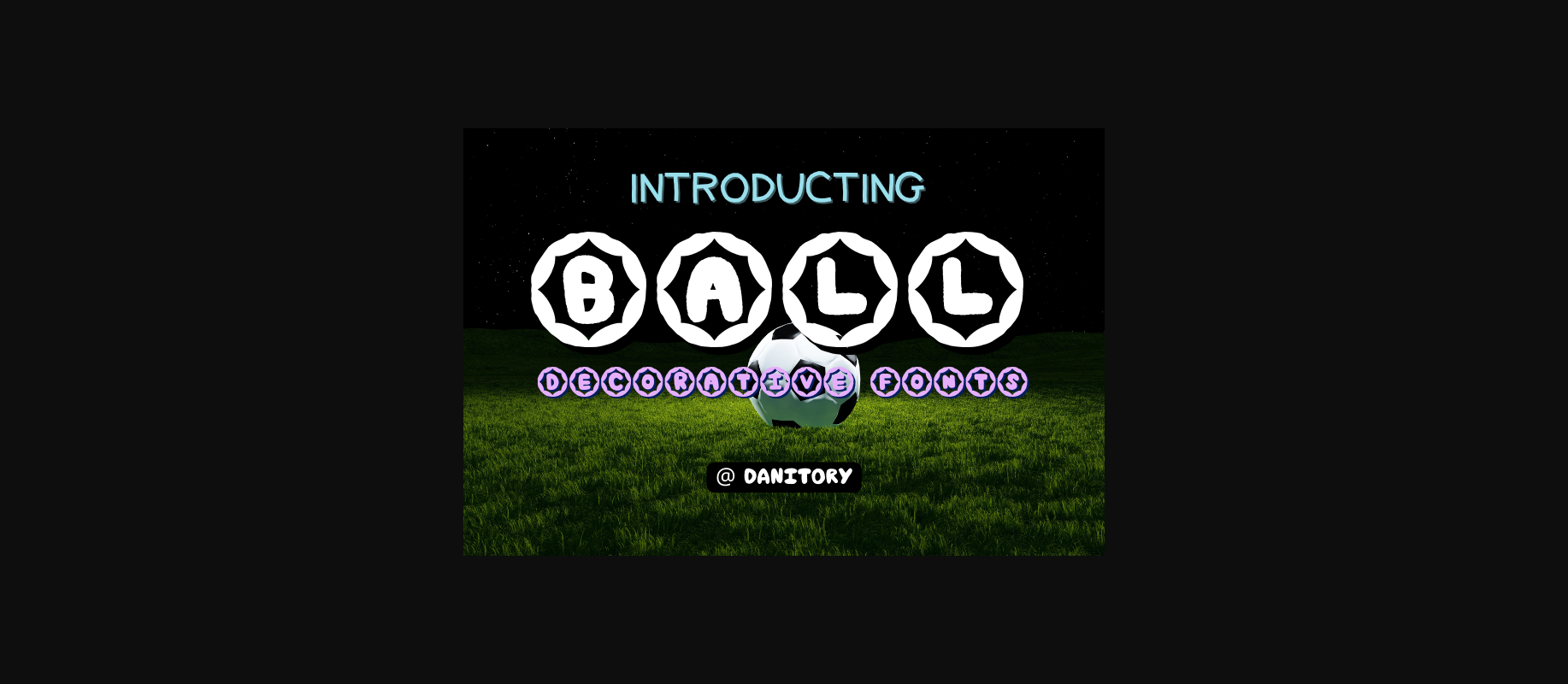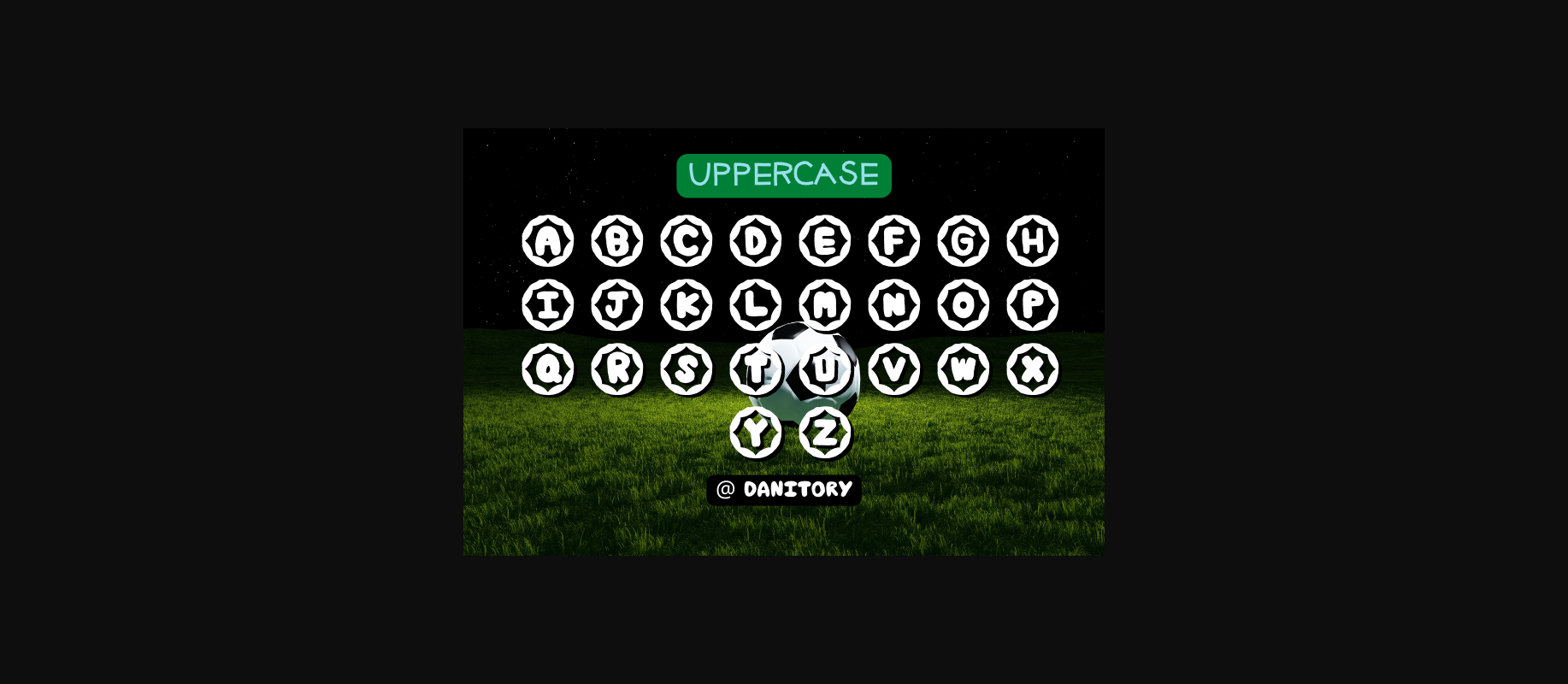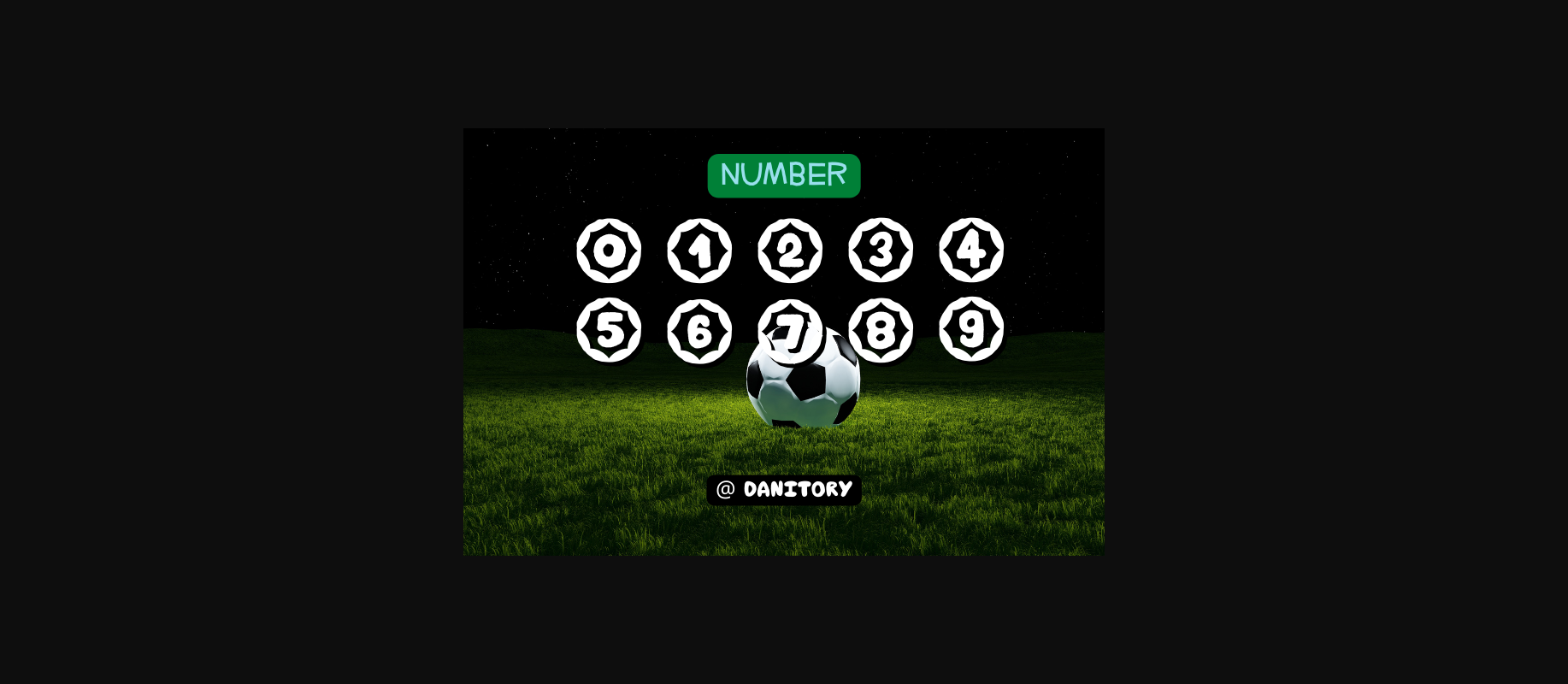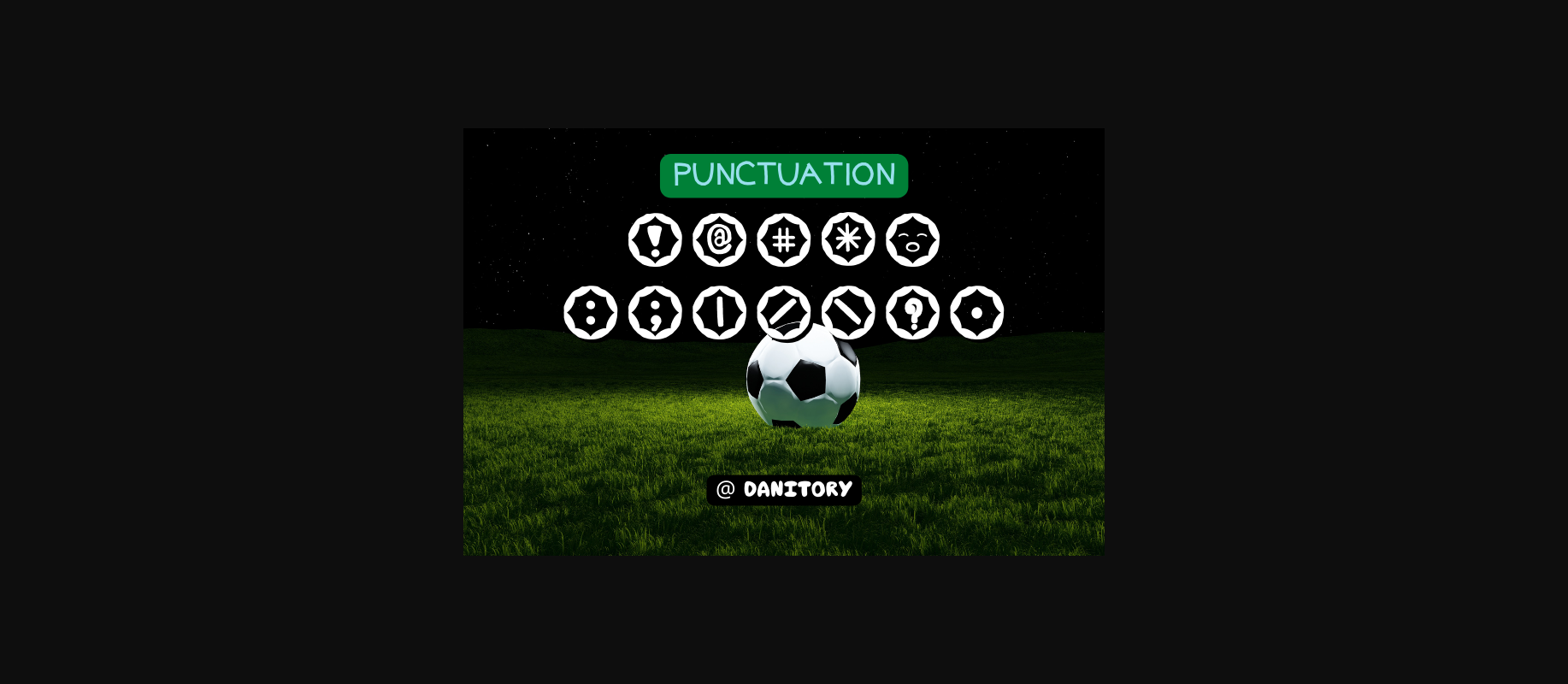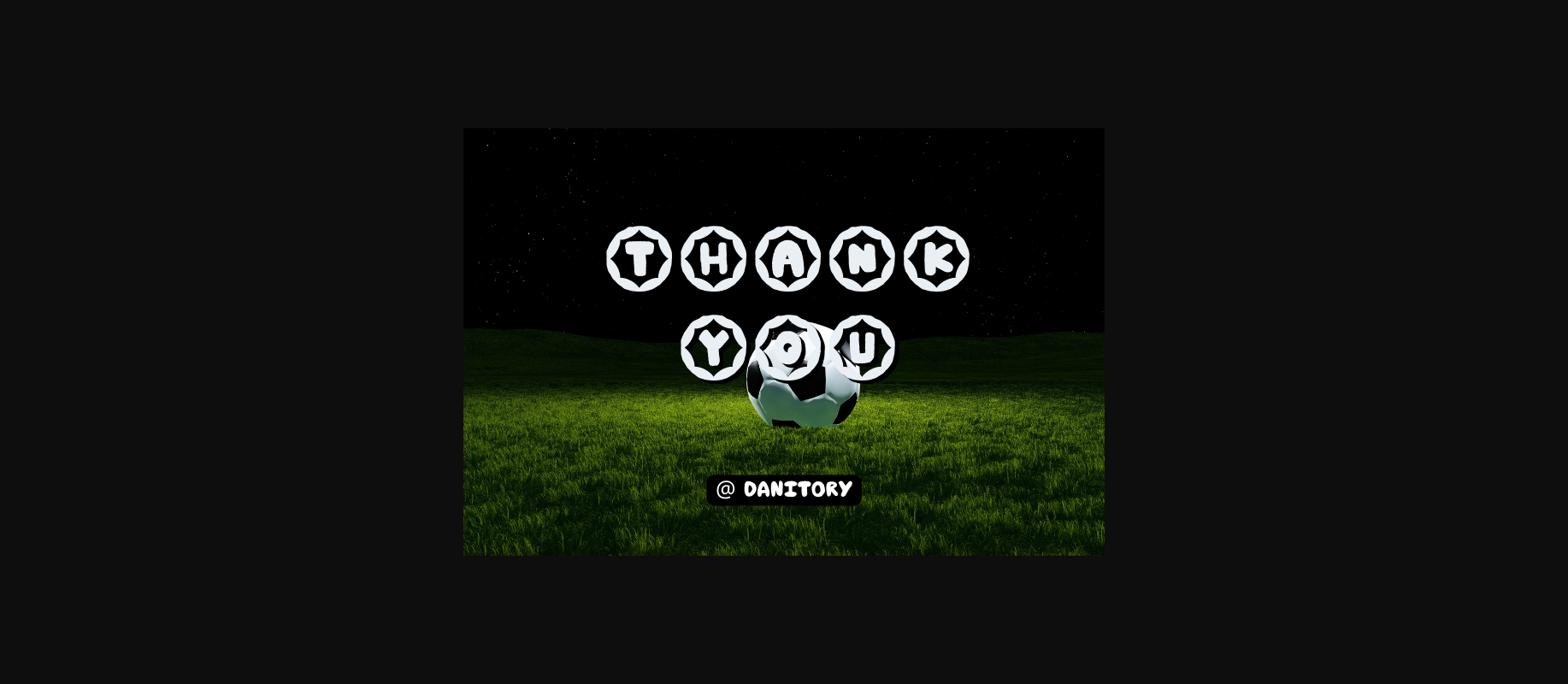
HomeDecorative FontsBall Font Decorative Fonts Ball Font FacebookXPinterestWhatsApp 1 of 7 ... Ball Font Poster 2... Ball Font Poster 3... Ball Font Poster 4... Ball Font Poster 5... Ball Font Poster 6... Ball Font Poster 7... About Ball Font Ball is a fun and cool decorative font. Add it to your sports-related designs, and you will love the results! DOWNLOAD NOW People also explored Scrapbook Font Bageton Font Willingar Diary Inosuke Font Flokison Font Bidgette Script Font Mermaid on Land Font Dream Unicorn Font Types Font 280 0 TagsBallBall Font Previous articleCyber Expert FontNext articleCrayon Font LEAVE A REPLY Cancel reply Comment: Please enter your comment! Name:* Please enter your name here Email:* You have entered an incorrect email address! Please enter your email address here Website: Save my name, email, and website in this browser for the next time I comment. Personal Use Free Boston Traffic Personal Use Free Read more about this font Planning Personal Use Free Read more about this font Baveuse Personal Use Free Read more about this font The Kingdom Personal Use Free Read more about this font BLOG Using Fonts in Digital Marketing: Tips to Strengthen Your Brand Identity In the realm of digital marketing, every visual element plays a crucial role in shaping a brand's identity, and fonts are no exception. The... Free vs Paid Fonts: Why Investing in Premium Fonts Is Worth It Best Fonts for T-Shirt Design – Top 2025 Picks How to Cut Any Font on Cricut: Convert a Font to SVG (Free)